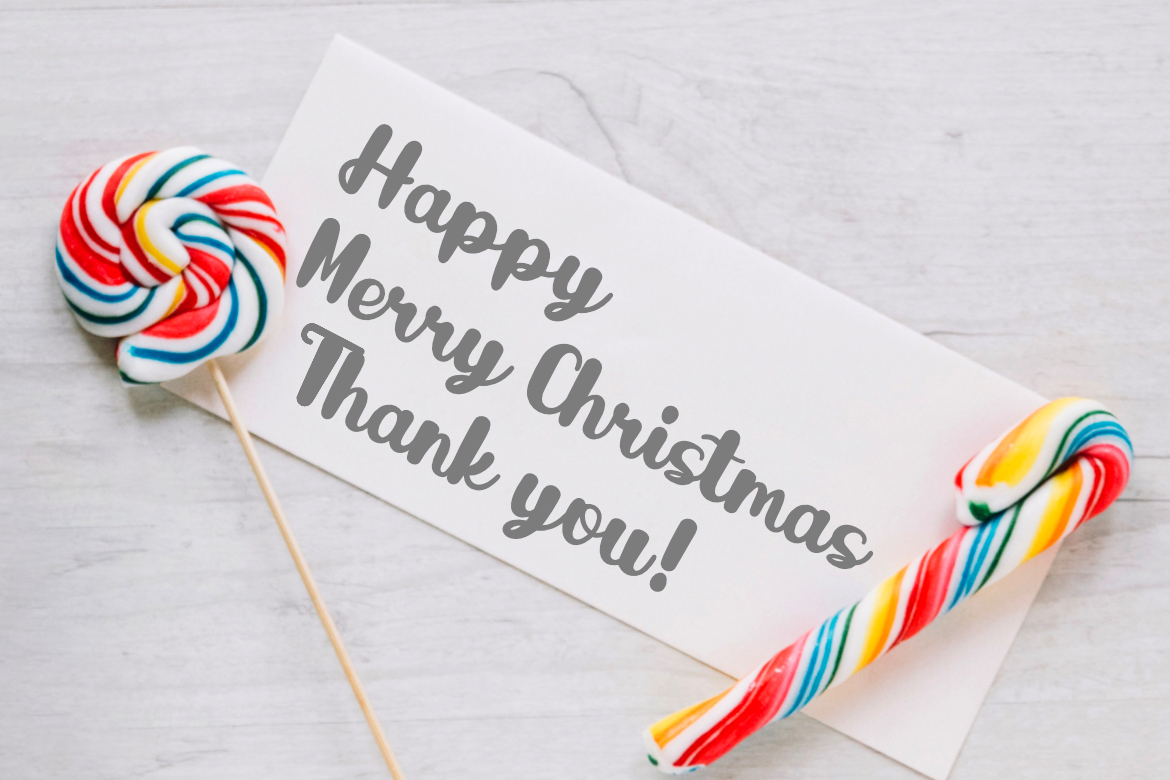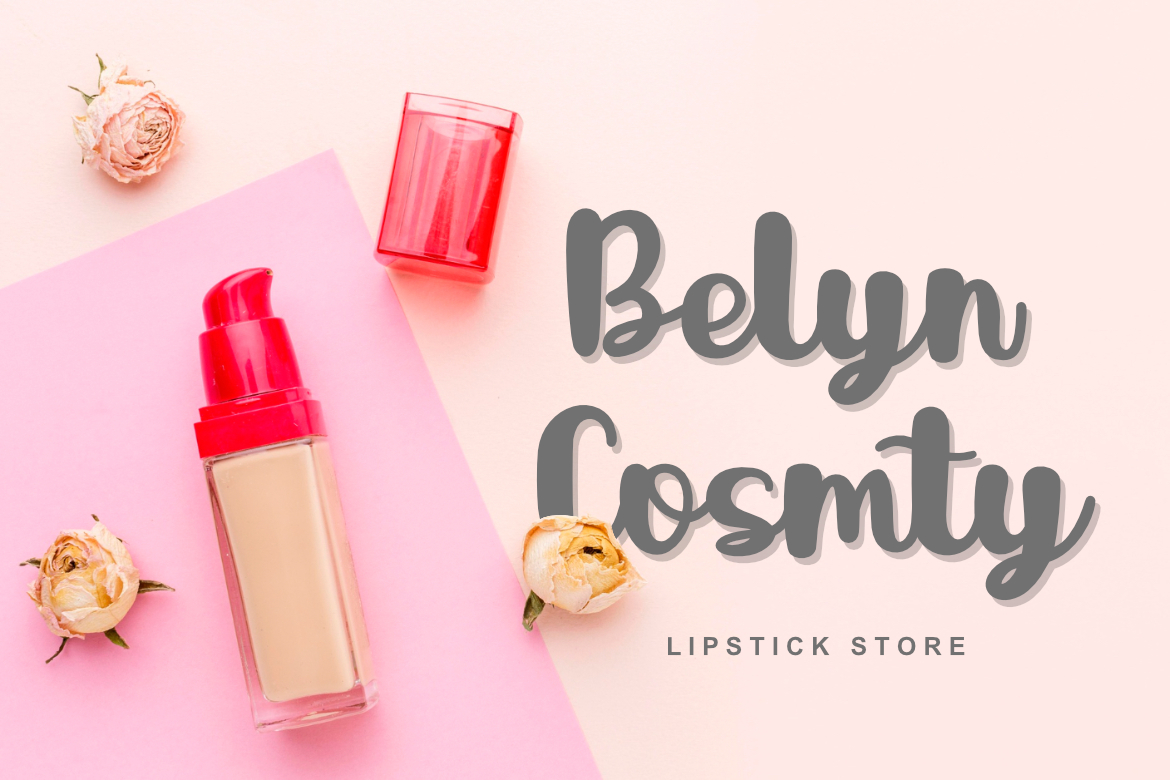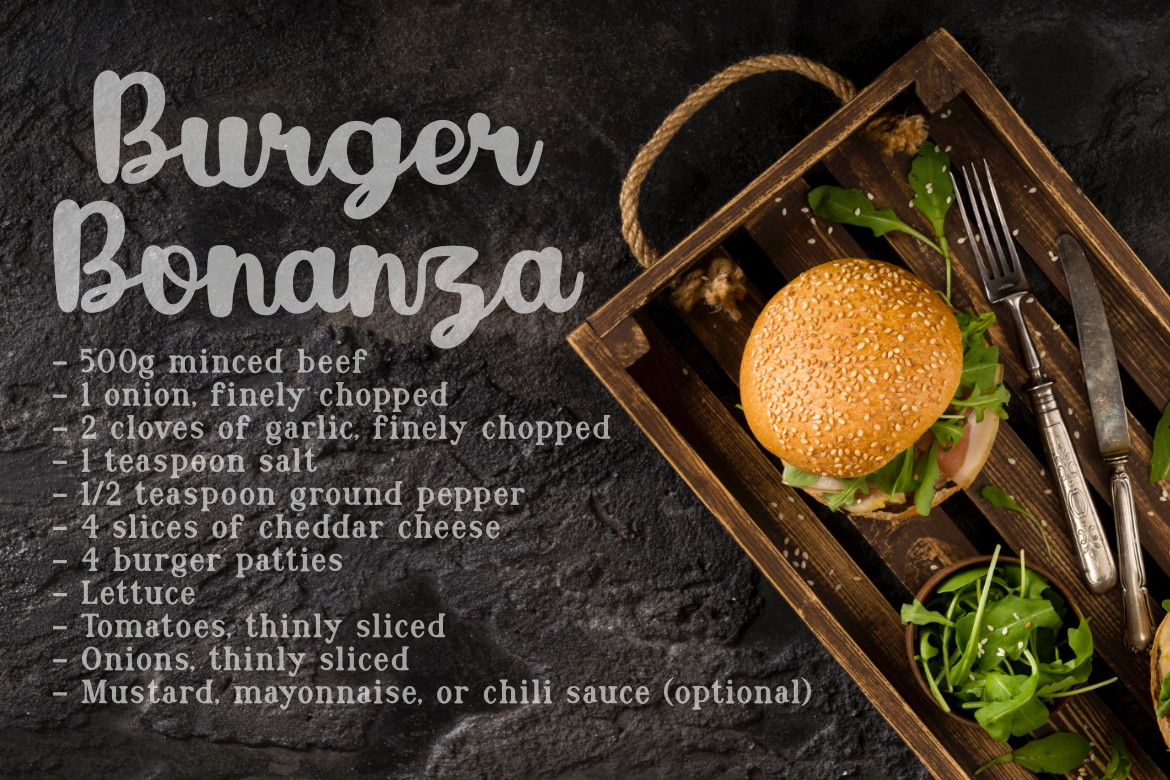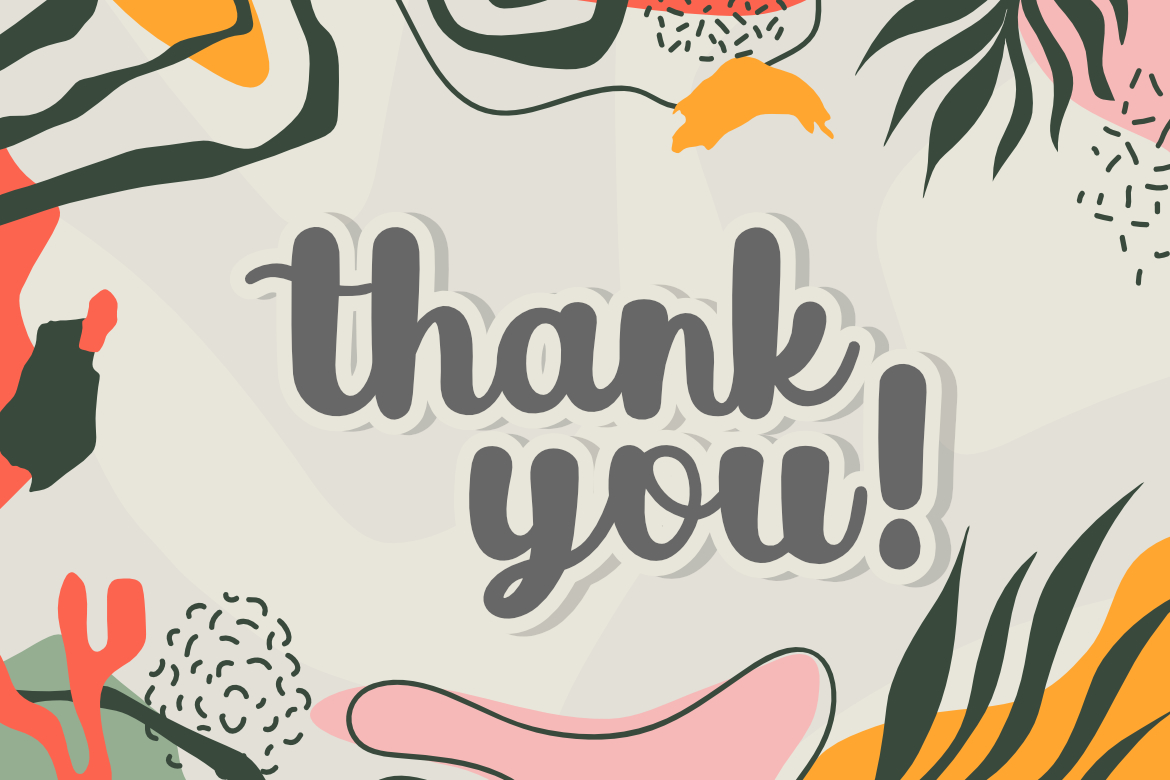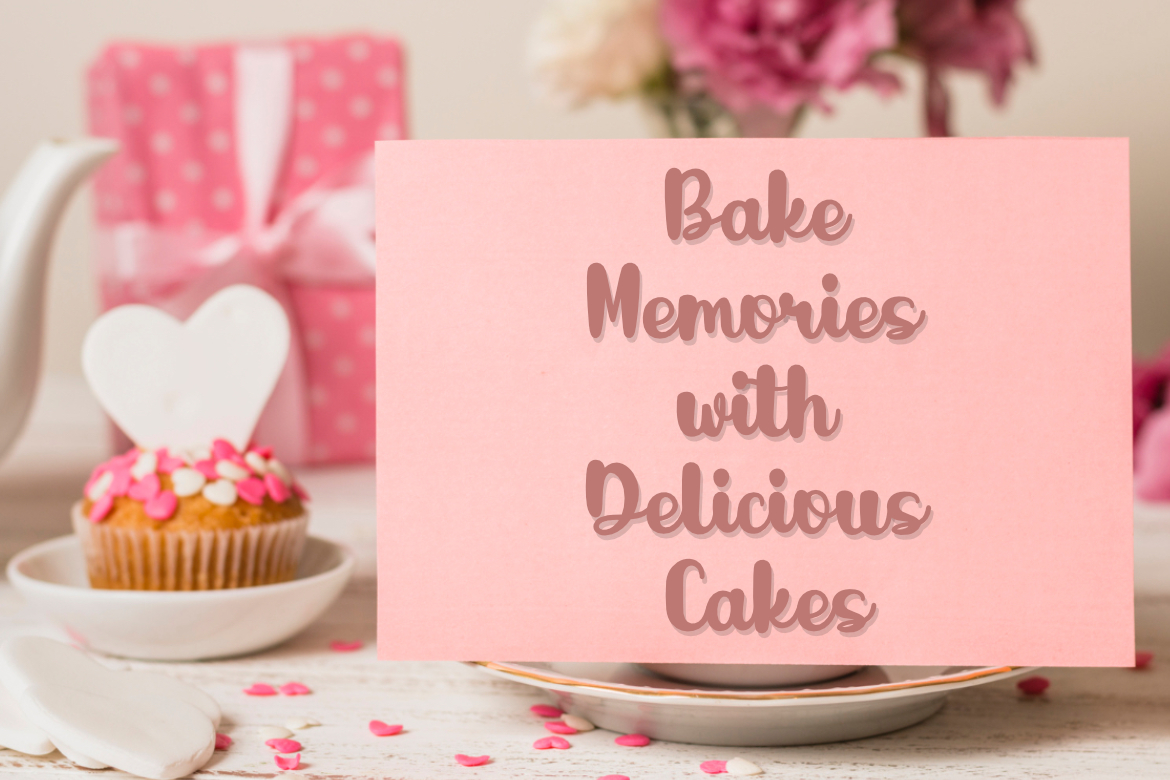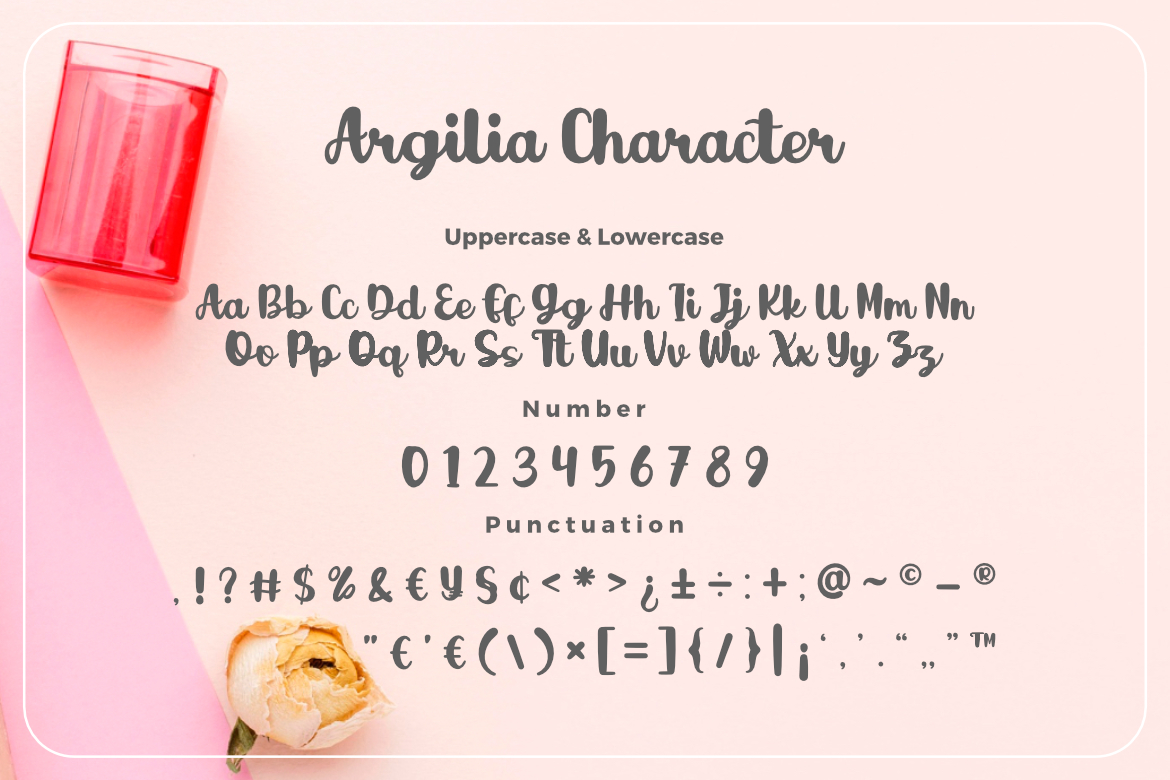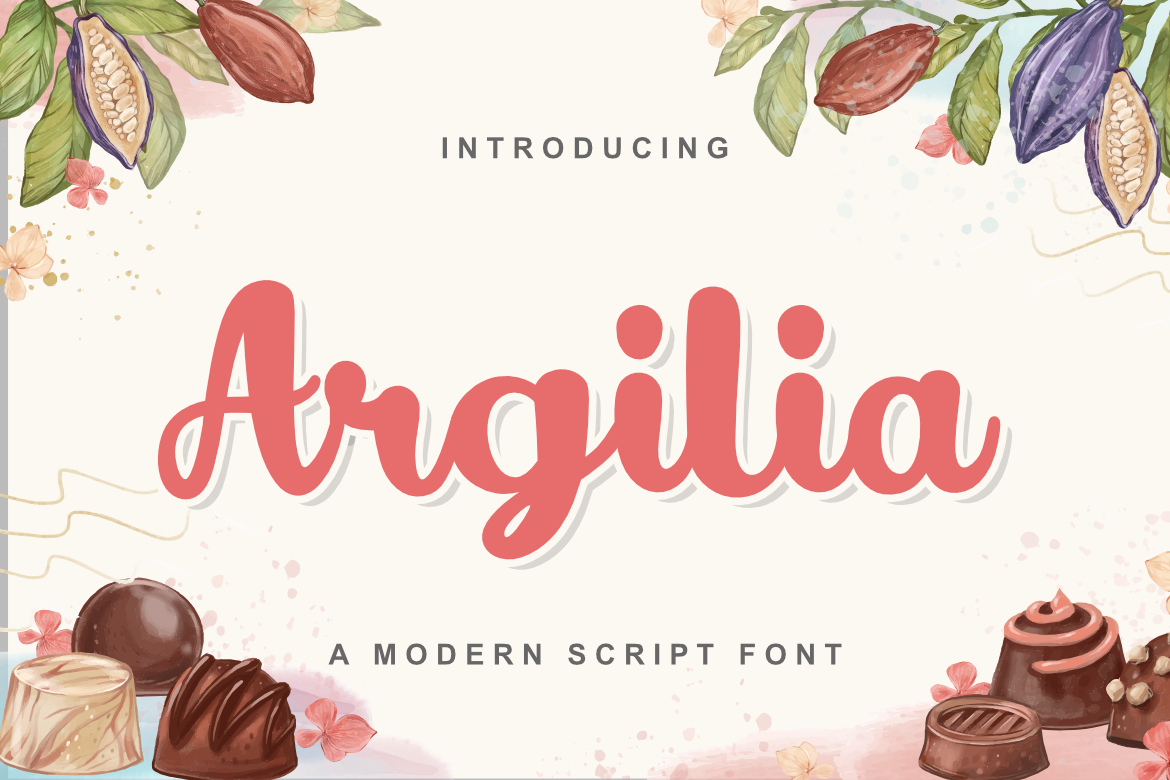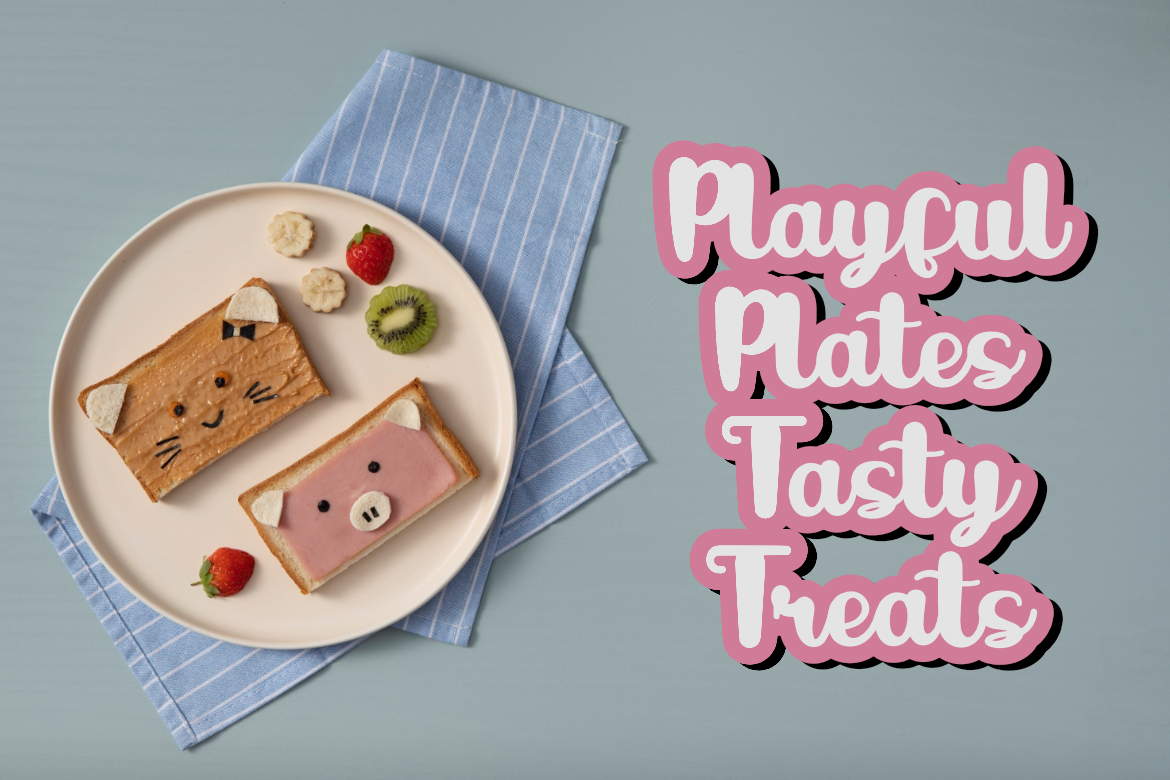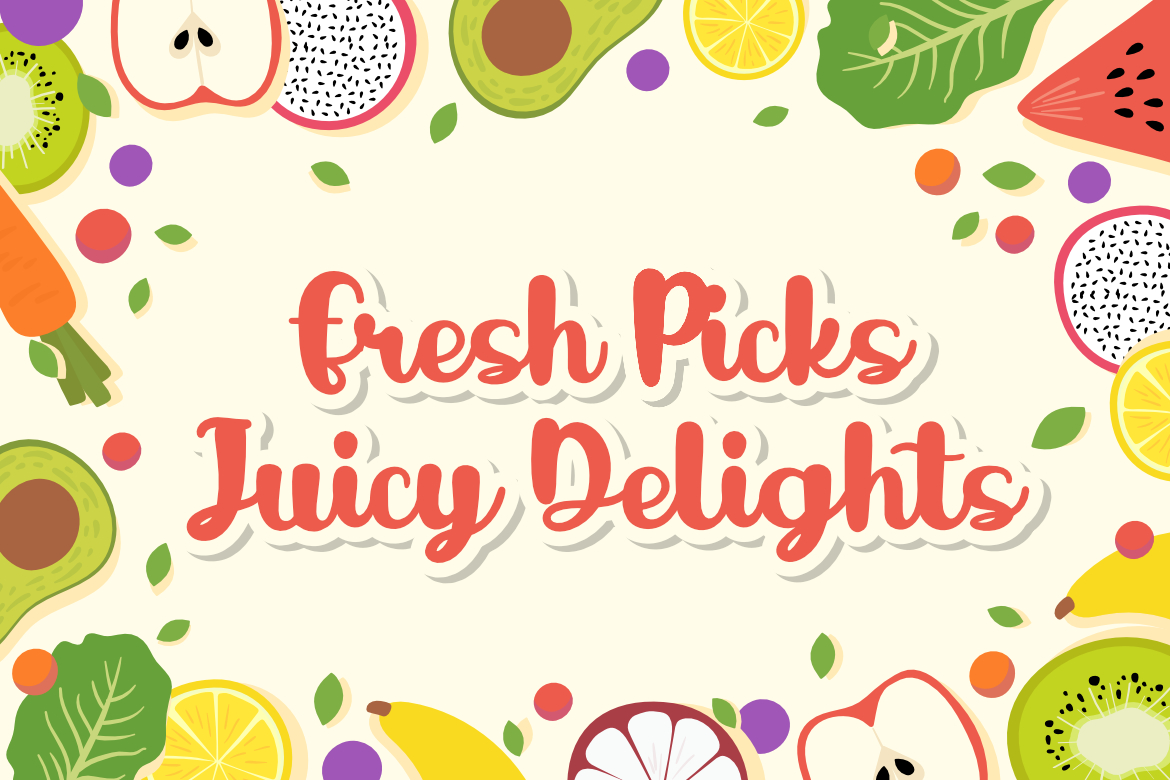
Argilia a Modern Script Sweet Premium Font
**Argilia a Modern Script Font**, This font is made with a high premium quality level which you can use as flyers, quotes, posters, banners, packaging, merchandise, logotypes and much more.
**FEATURES :**
* Uppercase
* Lowercase
* Number
* Punctuation
* Multilingual